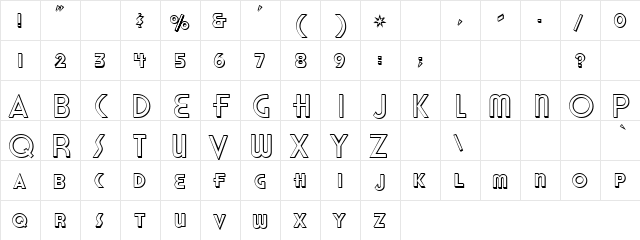
Shadow Man Regular
Design Context for Shadow Man Typeface
Shadow Man is built around its visual character rather than neutral utility — its distinctive forms are designed to make an impression at display sizes.
Font Pairing: Pair with a clean neutral sans-serif for body copy to let Shadow Man's character lead without overwhelming the composition.
Pro Tip: Treat Shadow Man as the centrepiece of your typographic hierarchy. One strong heading set in a decorative face can carry an entire layout.